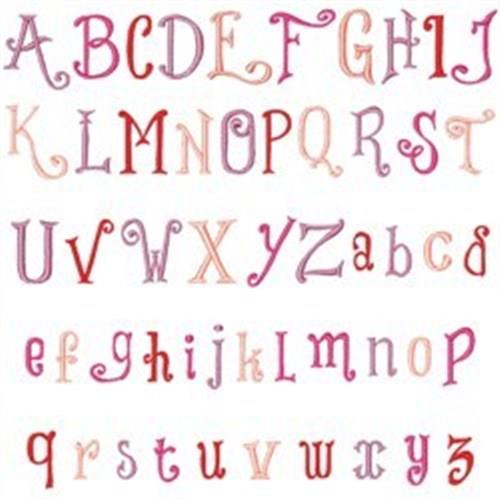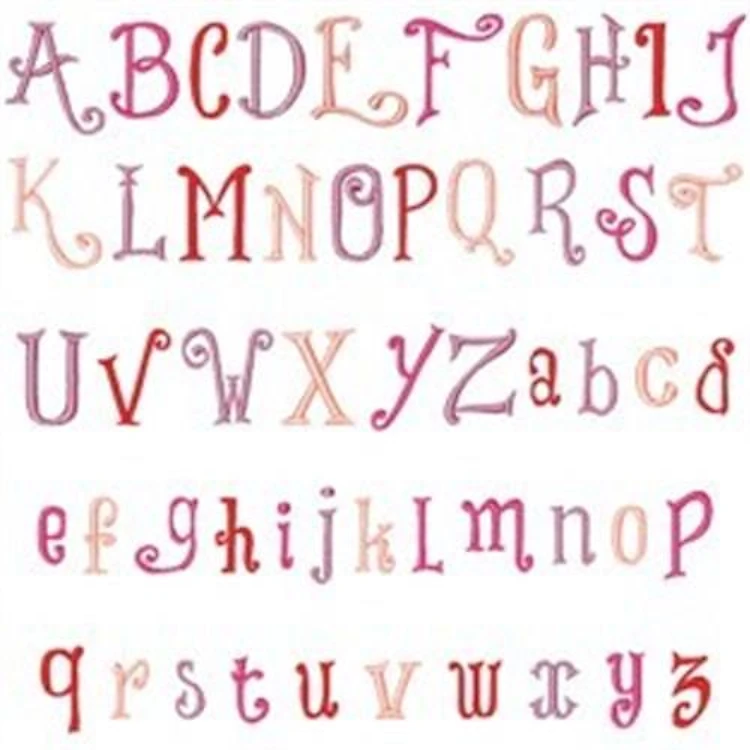
Concord Collections is happy to present Fruity Font machine embroidery font which has Fruity Font displays a playful style with elaborate swirly letterforms filled in pinks and reds, perfect for children's clothing and fun party decorations. This machine embroidery font is available in PES, DST, and other formats. included. If you would like to view more embroidery fonts and alphabets please search our embroidery fonts page.
4 heights: 0.75″, 1″, 1.25″, 1.5″.